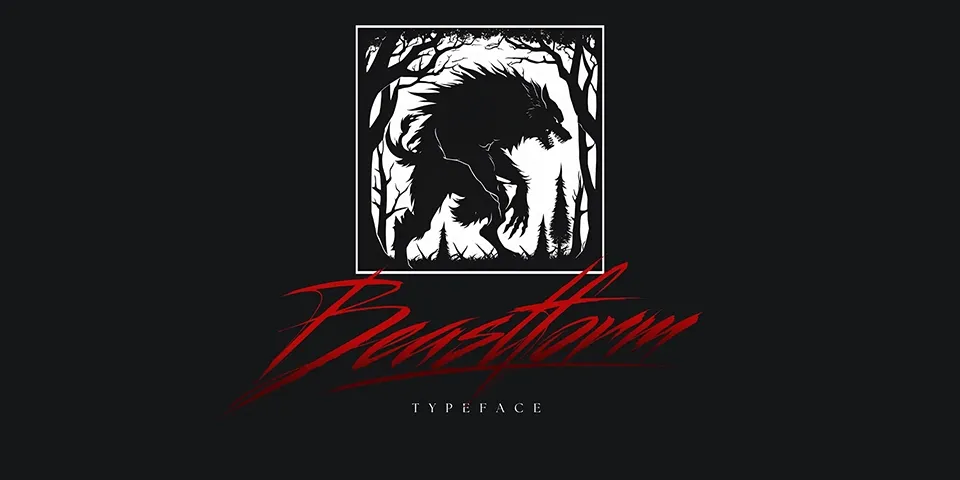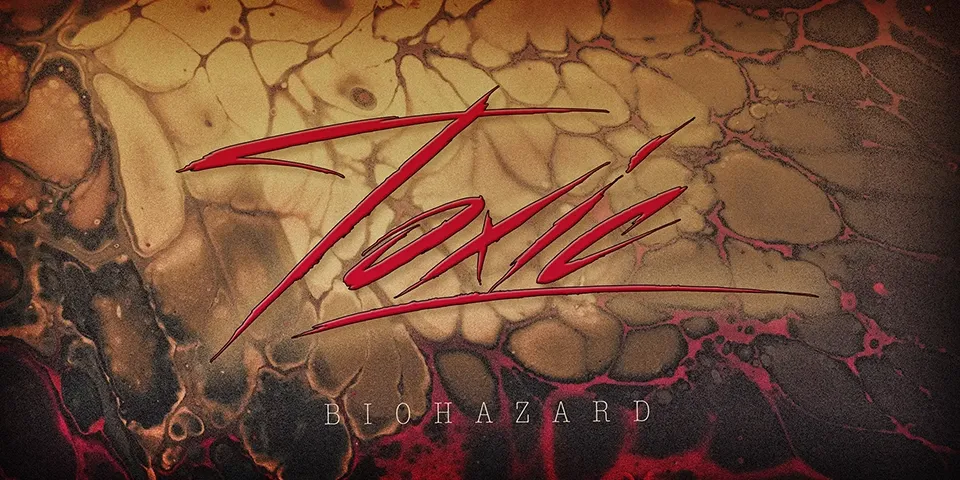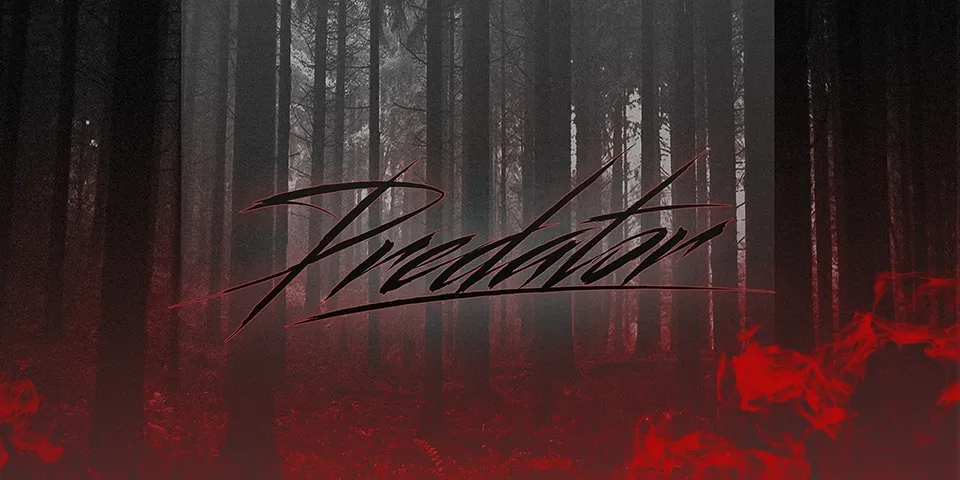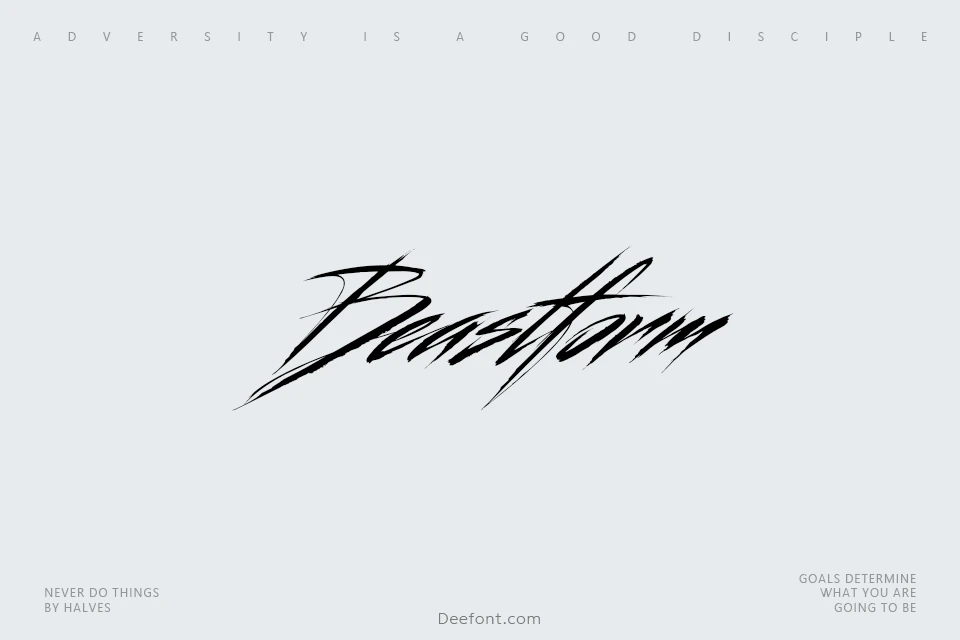
Beastform Font
Beastform Font is a dynamic and aggressive script font characterized by sharp, angular strokes and a strong sense of motion. Its slanted, brush-inspired letterforms evoke speed and energy, making it ideal for bold headlines, sports branding, music album covers, posters, and edgy fashion labels. With high contrast and condensed, elongated forms, Beastform stands out in any creative project that demands a modern, expressive, and impactful look.